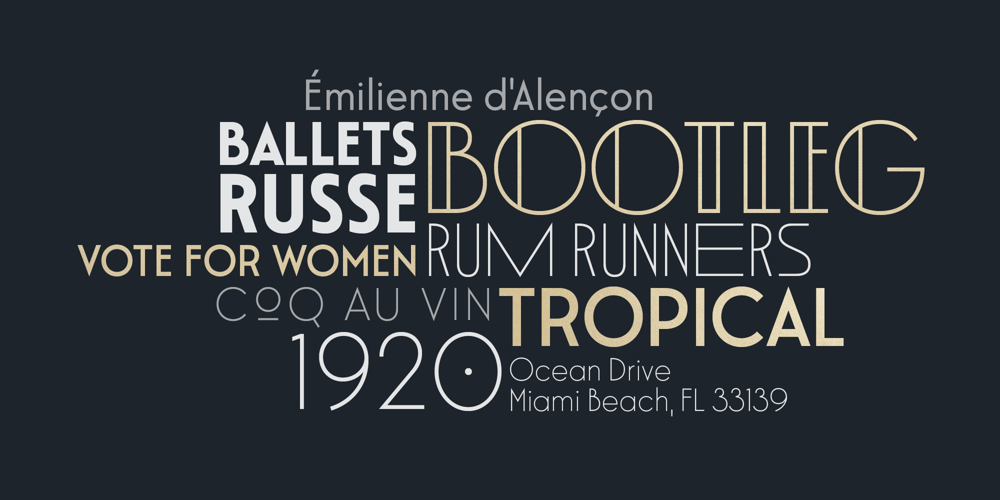
Interbellum Font Family was designed by Kristof Van Proeyen and published by Punch. Interbellum contains 9 styles and family package options. Interbellum is an Art Deco inspired font family which contains 3 display fonts, 2 modern-looking text fonts and 4 AllCaps fonts. In combination, you can easily give your designs a bold, yet elegant look. And by using the many different style sets, it is able to stand tall in all sorts of designs.Although it was inspired by the roaring 20s, we still think of Interbellum as an everlasting time traveller that will definitely impress your clients.